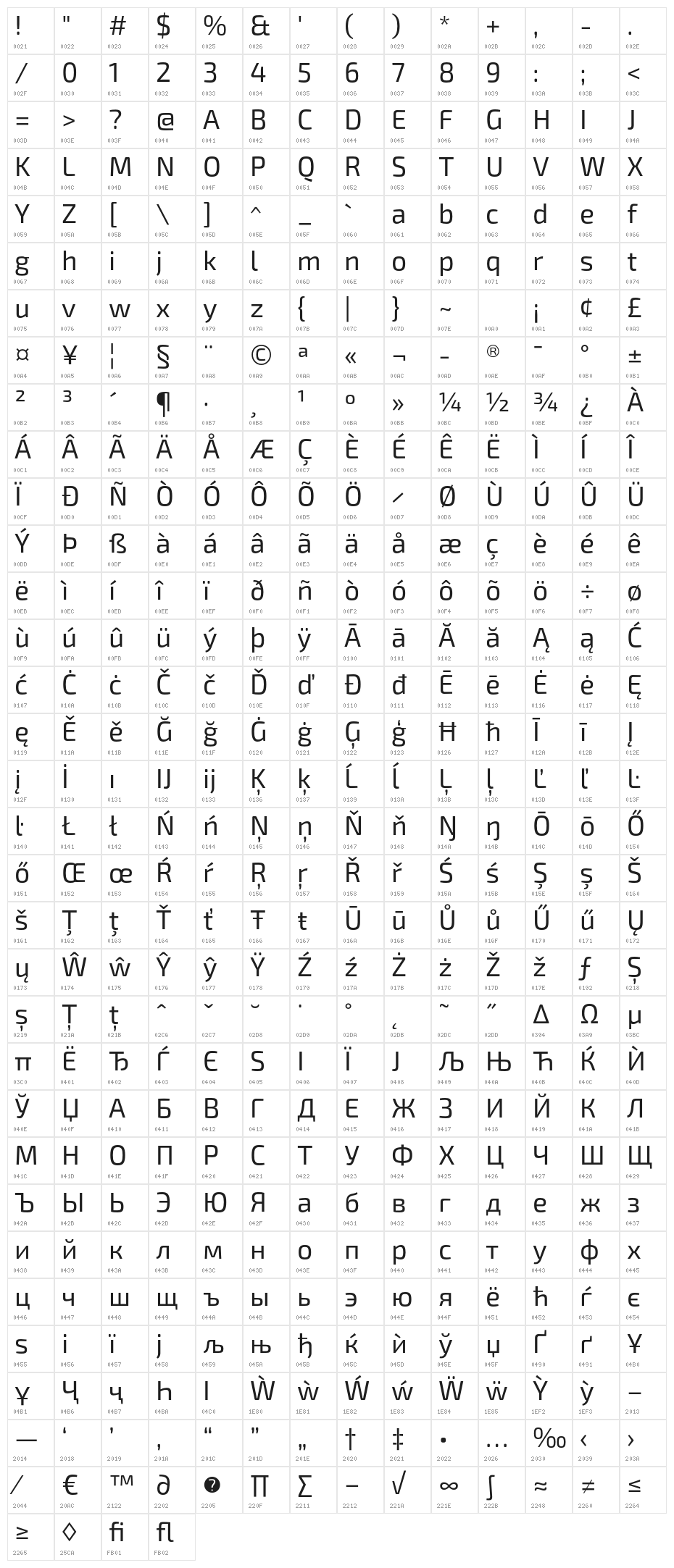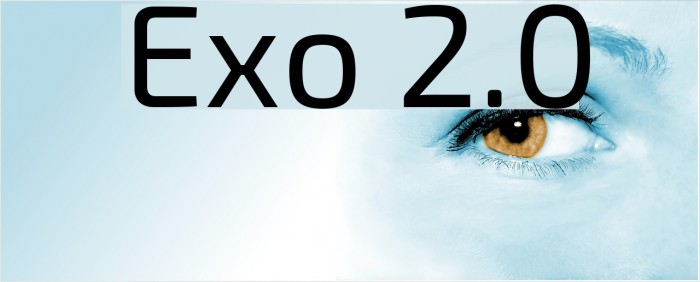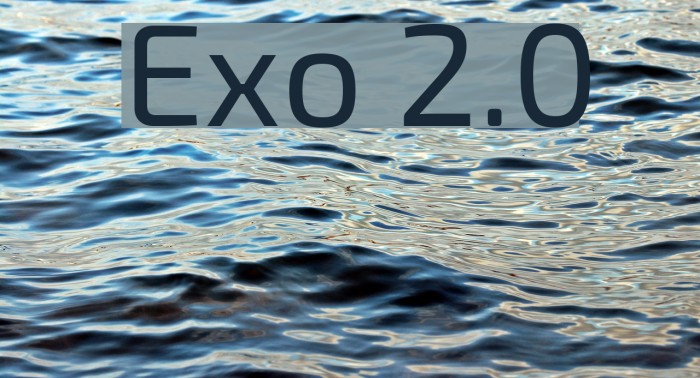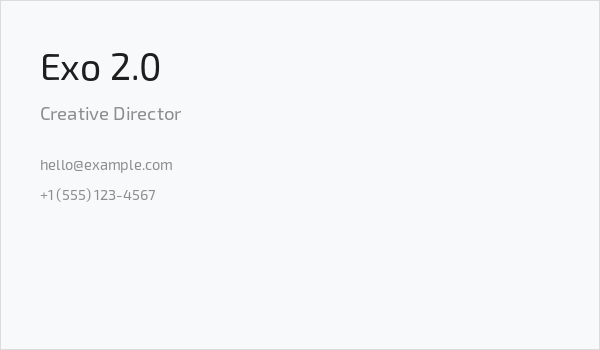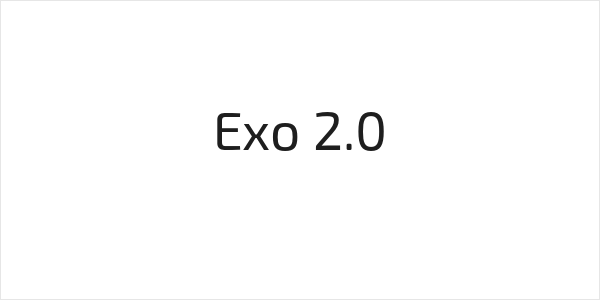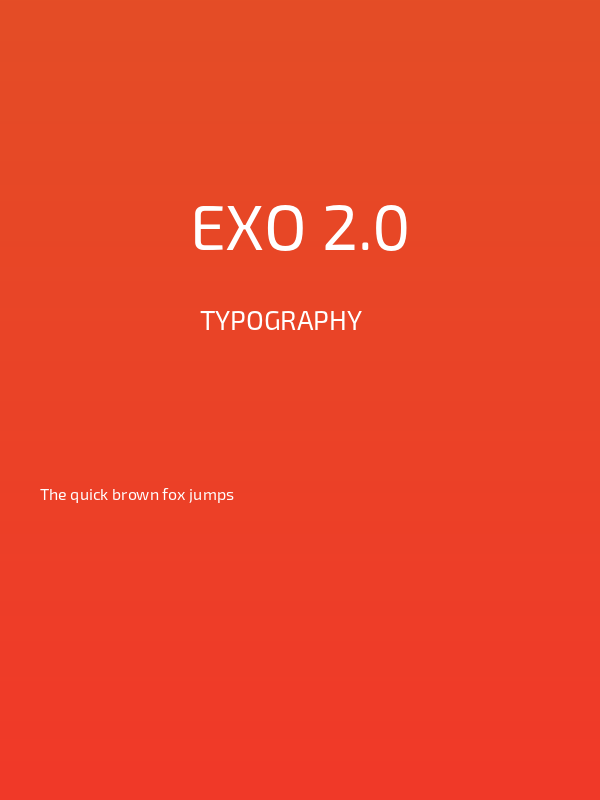
Exo 2.0 Font
Exo 2.0 Description
This font features a modern and sleek design with clean lines and a geometric structure. The characters are well-proportioned, offering a balanced appearance that enhances readability. Uppercase letters are bold and assertive, while lowercase letters maintain a friendly and approachable feel. The numerals are clear and distinct, making them suitable for various applications. Special characters are designed with precision, adding to the font's versatility. The overall style is contemporary, making it ideal for digital and print media.
Use CaseHeadlines, Body text, Logos
Proposed ProjectsIdeal for tech branding, digital interfaces, modern advertising, and editorial design.